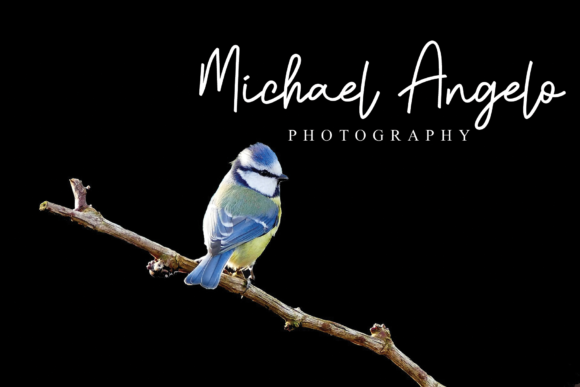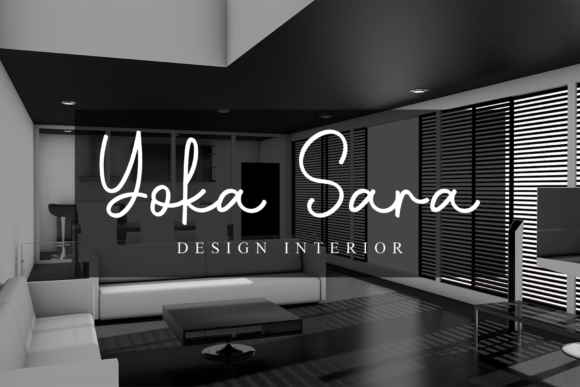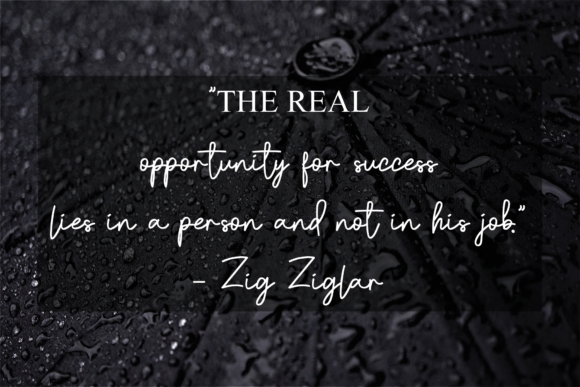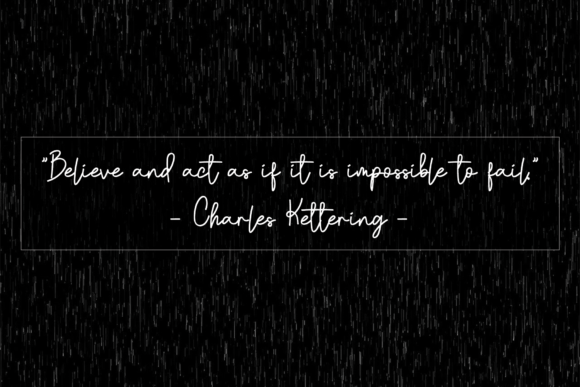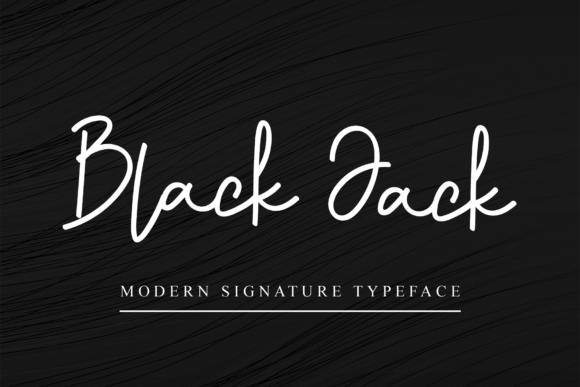
Discover the Elegance of Black Jack Font: A Perfect Addition to Your Design Arsenal
In the world of typography, fonts play a crucial role in conveying messages, expressing emotions, and adding aesthetic value to designs. For designers and crafters looking for a unique and elegant touch, the Black Jack Font stands out as an exceptional choice. This article will delve into the characteristics, benefits, and creative applications of the Black Jack Font, a thin and cursive handwritten font that is simple, easy to use, and remarkably beautiful.
What is Black Jack Font?
Black Jack Font is a thin and cursive handwritten font designed to bring a touch of elegance and sophistication to various design projects. Its simplicity and ease of use make it an excellent choice for designers of all levels. Whether you’re working on craft designs, digital projects, or print materials, Black Jack Font is versatile enough to complement a wide range of creative endeavors.
Key Features of Black Jack Font
- Thin and Cursive: The font’s thin lines and cursive style lend a graceful and fluid appearance to any text, making it perfect for projects that require a personal and elegant touch.
- Simple and Easy to Use: Despite its sophisticated look, Black Jack Font is incredibly user-friendly. It can be easily integrated into various design software, allowing for seamless workflow.
- Versatile: Its adaptability makes it suitable for a multitude of design applications, from crafting and scrapbooking to digital graphics and editorial design.
- Beautiful in Mixed Designs: The real beauty of Black Jack Font shines when it’s mixed with other craft designs. It can complement bold and striking elements or add a refined contrast to more subtle and minimalist designs.
Benefits of Using Black Jack Font
The benefits of incorporating Black Jack Font into your design projects are numerous:
- Elegance: It adds an undeniable touch of elegance and class to any design.
- Readability: Despite its thin lines, the font maintains excellent readability, making it suitable for both headings and body text.
- Creativity: The cursive nature of the font allows for creative freedom, enabling designers to experiment with different design elements and layouts.
- Time-Saving: Given its ease of use, designers can significantly reduce the time spent on selecting and adjusting fonts, allowing more time for other creative aspects of the project.
Creative Applications of Black Jack Font
The versatility of Black Jack Font means it can be used in a variety of creative projects:
- Crafting and Scrapbooking: Add a personal and elegant touch to your scrapbook pages or craft projects with this beautiful font.
- Digital Graphics: Use it in social media graphics, blog headers, or digital invitations for a sophisticated look.
- Editorial Design: Enhance the aesthetic appeal of magazines, brochures, or flyers with its elegant cursive style.
- Branding: For businesses looking for a font that conveys elegance and sophistication, Black Jack Font can be a valuable asset in creating a brand identity.
| Font Name | Black Jack Font |
| Author | erik studio |
Black Jack Font is a remarkable addition to any designer’s toolkit. Its combination of elegance, simplicity, and versatility makes it an ideal choice for a wide range of projects. Whether you’re a professional designer or a hobbyist crafter, incorporating Black Jack Font into your work can elevate your designs to new heights of aesthetic appeal and sophistication. So, why not give Black Jack Font a try and discover the difference it can make in your creative endeavors?